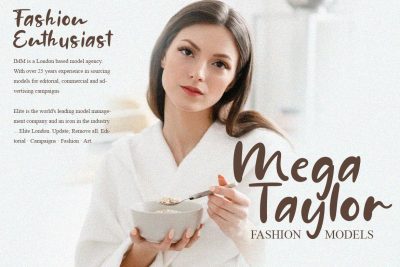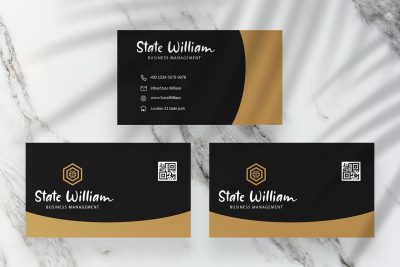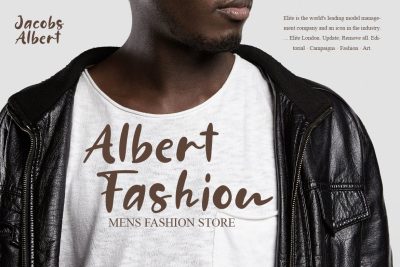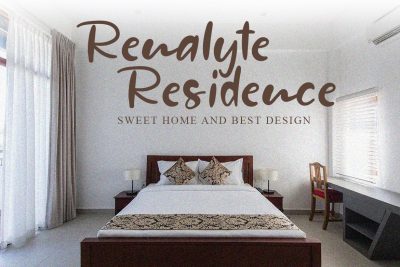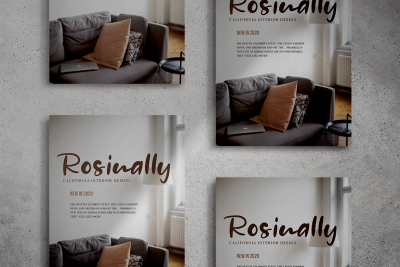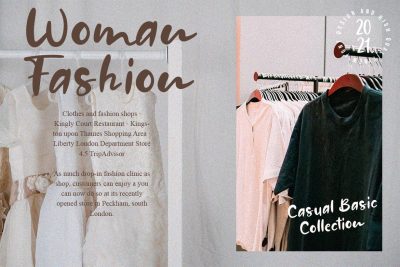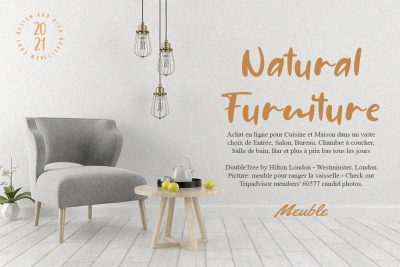
Cute Font Avelia” is an elegant, handwritten typeface that brings warmth, charm, and sophistication to any design. With its “Elegant Signature Font” style, it combines a personal touch with stylish simplicity, making it versatile for many uses. Each letter flows gracefully, resembling a handwritten signature, yet remains clear and easy to read. Its gentle curves and smooth lines create a soft, approachable look that is both inviting and visually appealing.
The font’s natural, flowing design adds a sense of movement, giving it a lively, dynamic feel. Paired with floral or decorative elements, Cute Font Avelia evokes themes of romance, elegance, and beauty. Often displayed in earthy, neutral tones, the font shines without overpowering the design, adding subtle sophistication to any project. Whether for personal or commercial purposes, this font is enhances any design with a refined yet warm touch, making it stand out in a memorable way.
Cute Font Avelia Suitable For
This font is ideal for small businesses, graphic designers, event planners, and anyone looking to add elegance to their projects. Itโs perfect for brands that want to convey warmth, sophistication, and a personal touch, such as boutique shops, artisanal businesses, and handmade product stores. The font works well for branding materials, including logos, business cards, and packaging, adding a personal yet polished look. For online stores, especially those focusing on handmade or eco-friendly products, Avelia reinforces authenticity and quality.
Event planners and wedding industry professionals will find Cute Font Avelia great for invitations, thank-you notes, and printed materials for special occasions. Its graceful, romantic style adds a unique touch that enhances the atmosphere of weddings, baby showers, and family gatherings. Lifestyle bloggers, influencers, and social media managers can also benefit from Cute Font Avelia. Its aesthetic appeal suits captions, graphics, and banners, helping to create engaging and visually pleasing content that resonates with audiences who value beauty and sophistication.
Furthermore, Cute Font Avelia is an excellent choice for educational and creative projects. Publishers and content creators working on family-oriented or childrenโs materials will find it delightful for titles, book covers, and worksheets. It blends the charm of handwriting with a clean, professional design, making it appealing to both kids and adults. Overall, this font is a versatile, beautiful font that enhances any project with a warm and approachable style, adding elegance and personality to designs across various industries and purposes.